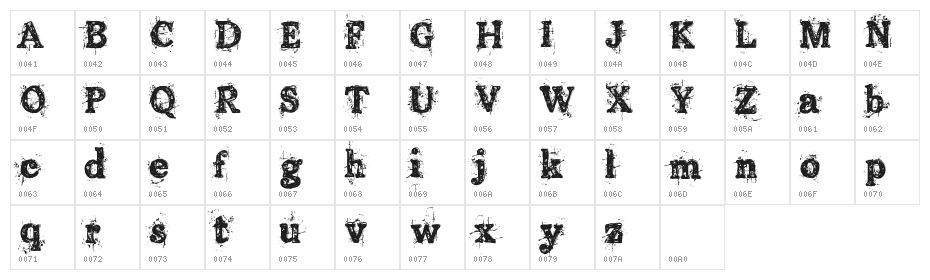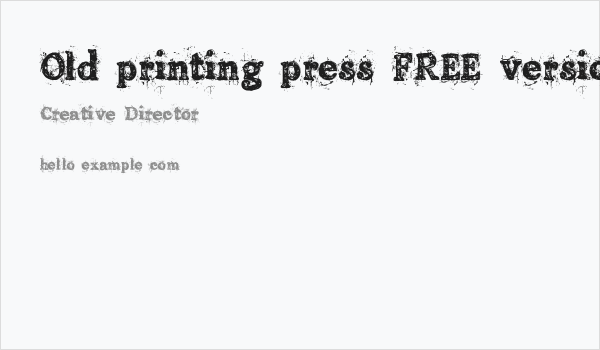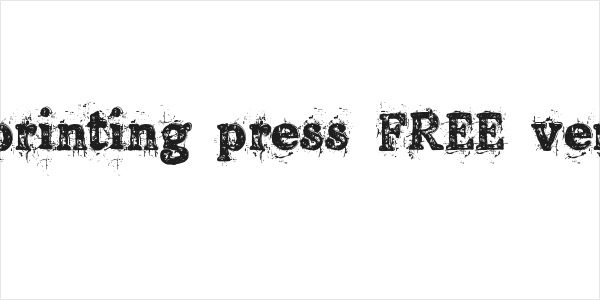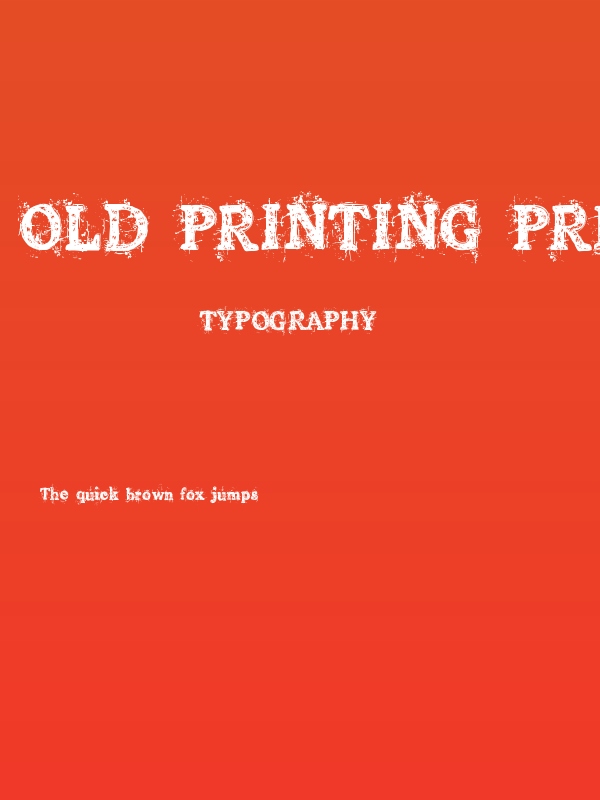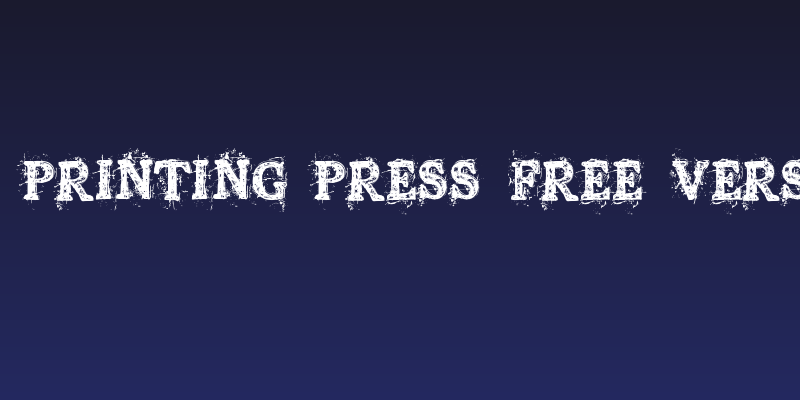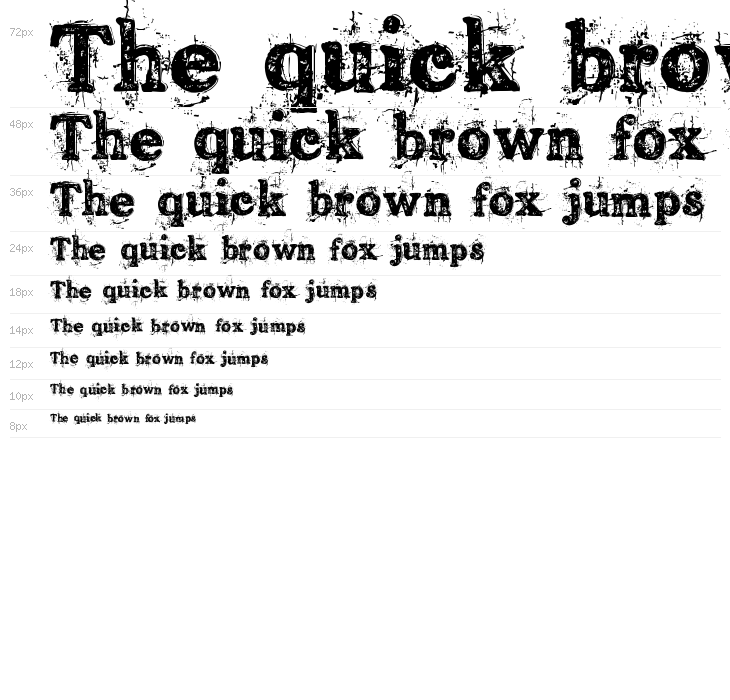
Old printing press_FREE-version Font
Old printing press_FREE-version Description
This font exudes a vintage, distressed aesthetic reminiscent of old printing press techniques. Each character is marked by a rough, textured appearance, giving it a worn and aged look. The letters are bold and slightly irregular, with a serif style that adds a classic touch. The texture creates a sense of history and authenticity, making it ideal for projects that aim to evoke nostalgia or a rustic charm. The uppercase and lowercase letters maintain a consistent style, while the numbers and special characters complement the overall design. This font is perfect for creating impactful headlines, posters, or any design that requires a touch of the past.
| Proposed Projects | Ideal for vintage-themed posters, retro branding, book covers, and historical presentations. |